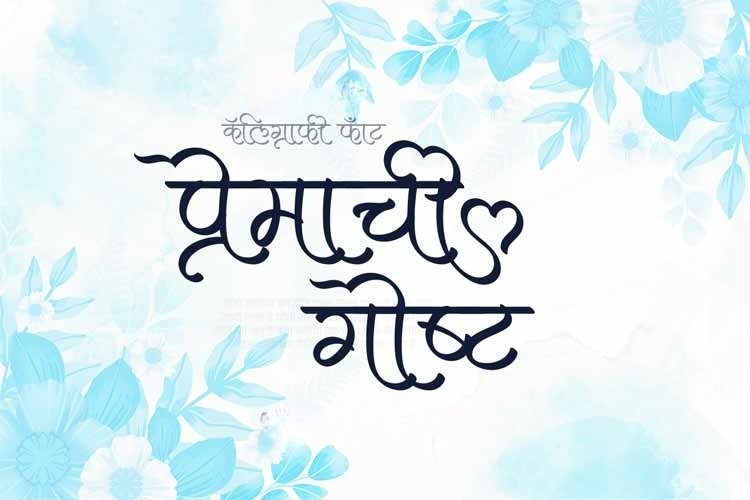
About Marathi Calligraphy Font
Marathi calligraphy fonts are specialized typefaces designed for the Marathi language, written in the Devanagari script. They move beyond standard printing styles to incorporate fluid strokes, decorative swashes, and traditional handwritten flair. These fonts capture the artistic elegance of classical Marathi manuscript writing, often used for weddings, festivals, religious materials, and cultural branding to evoke heritage and beauty. Modern digital versions balance this ornate character with clear readability, making them versatile for both decorative headlines and shorter blocks of text in design projects that require a authentic, handcrafted feel.